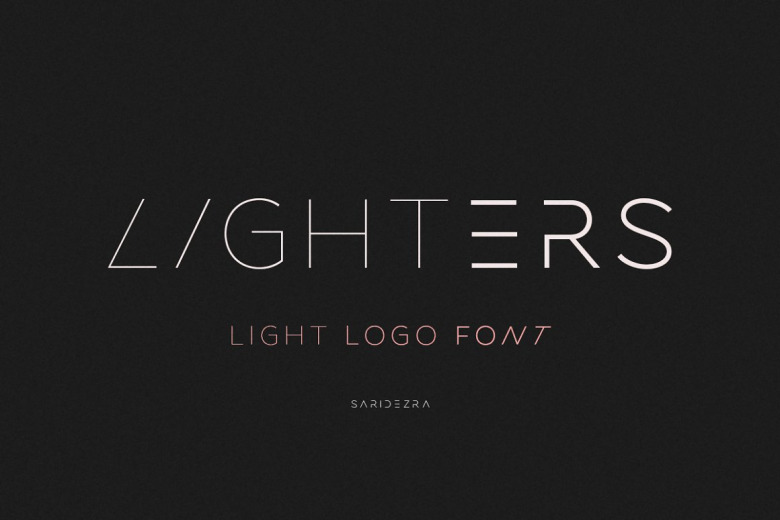
Lighters Font
Lighters is a minimal logo font with the original lower case and more simple styles will make your logo and design look cleaner. Can Be Combine with three weight styles will make your design super cool. This font is free for any use, preferably for logotype and poster design.
You can make it a bit more complex by combining the uppercase and the lower case. Revelstoke Script Font also has a number, a symbol, So other language support.
Lighters Logo Font